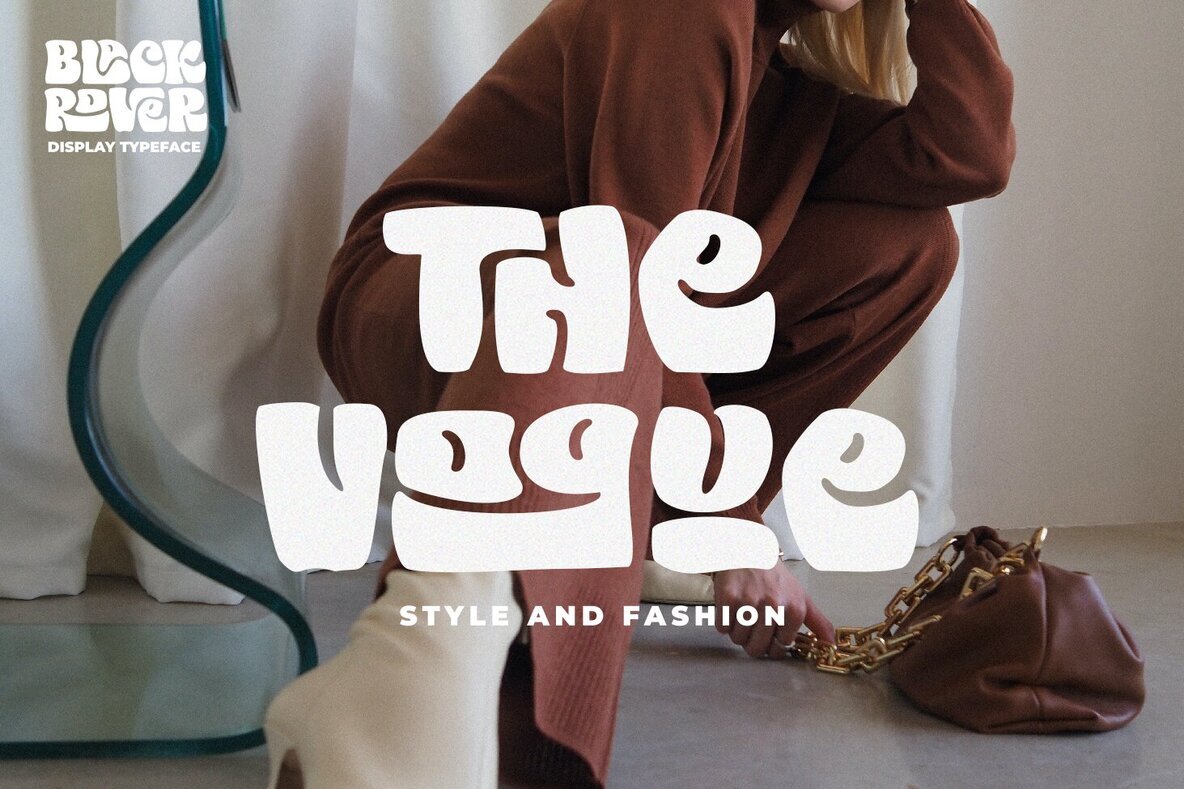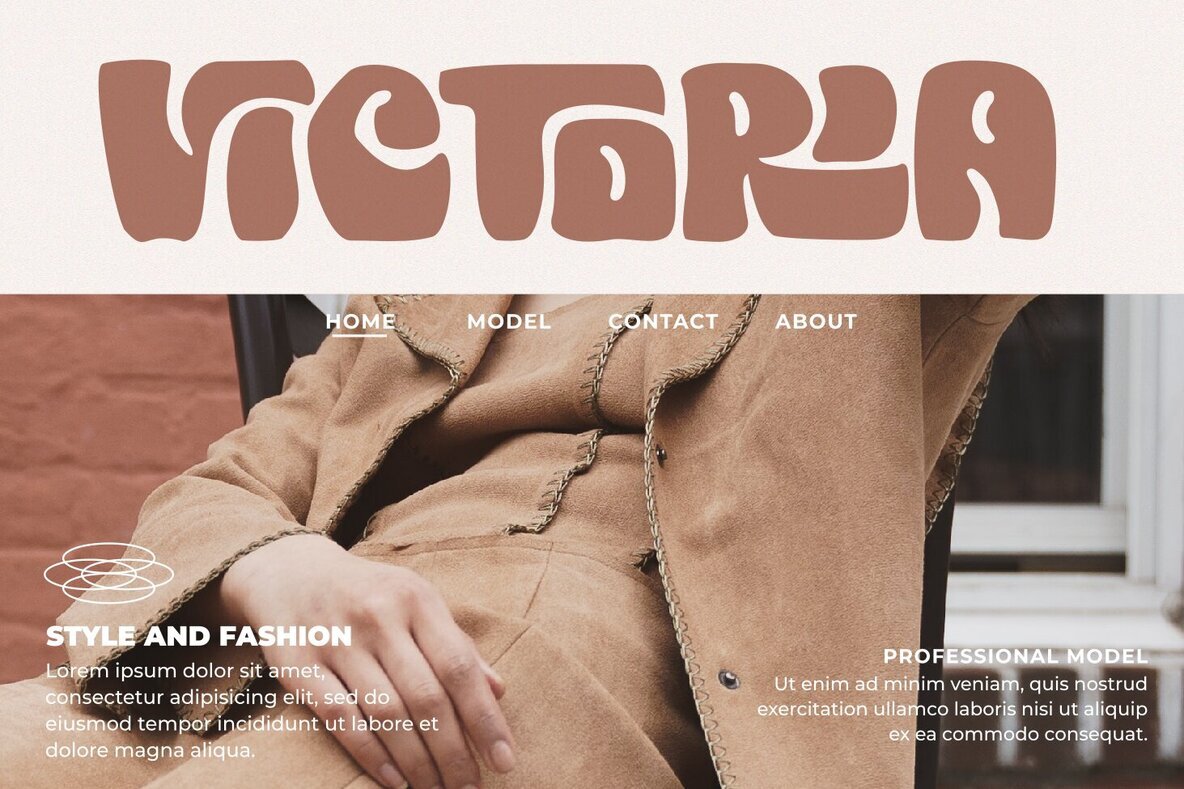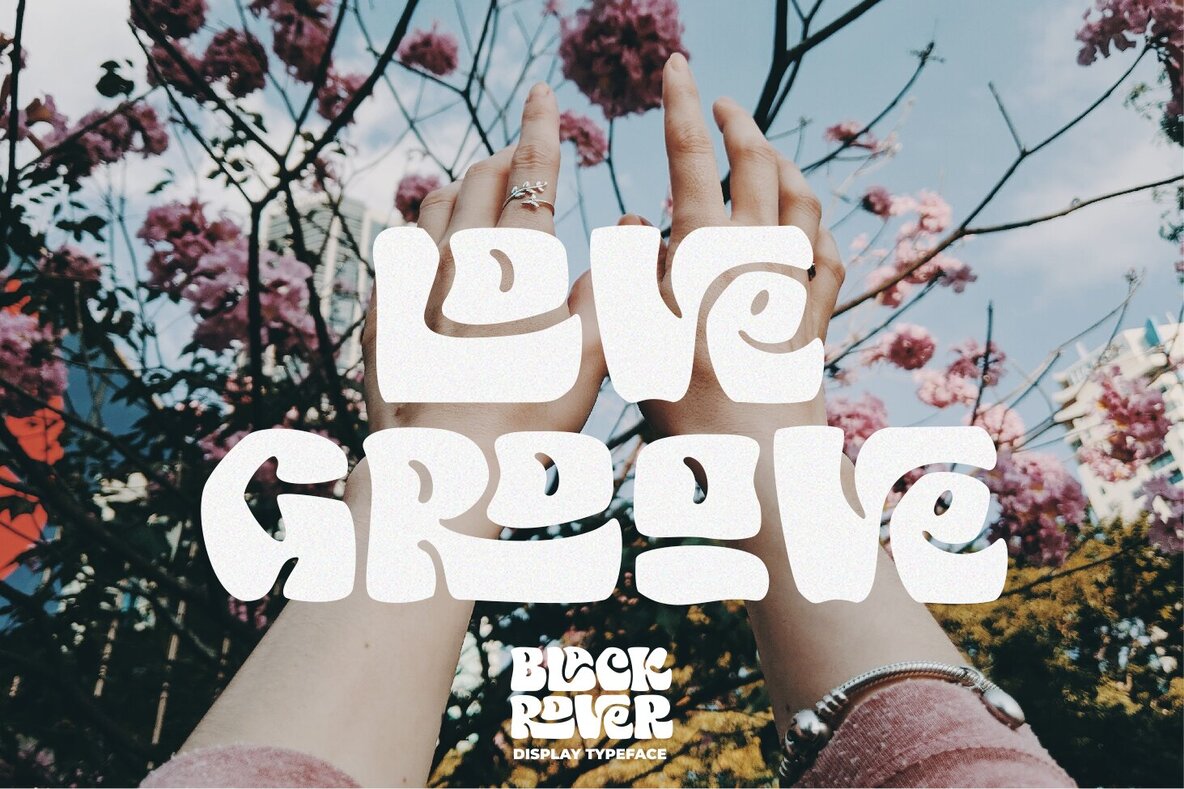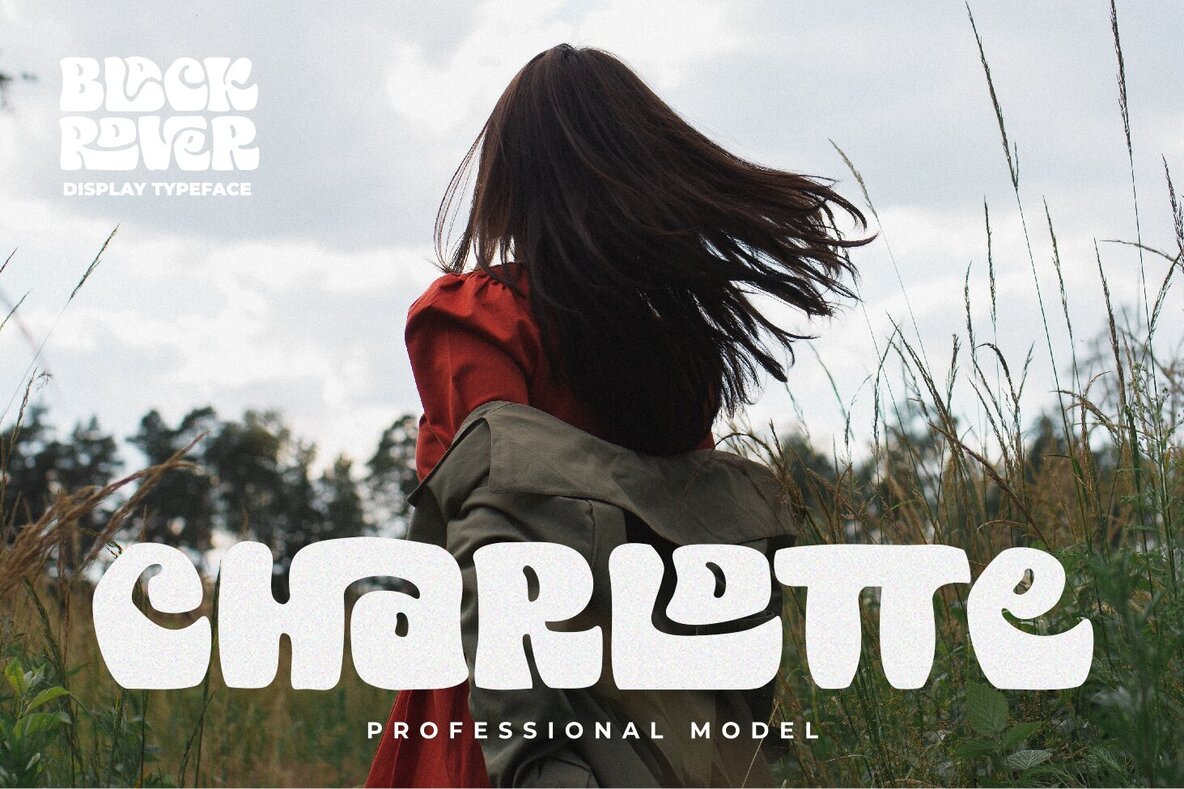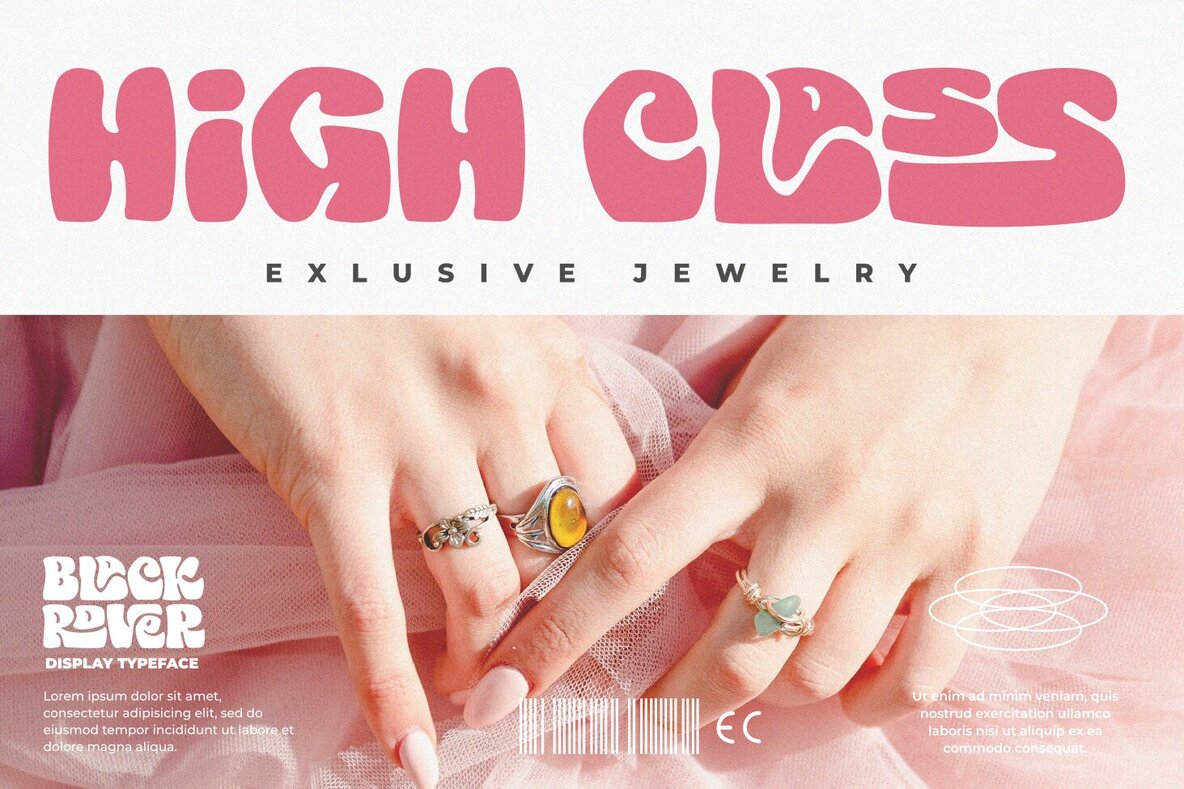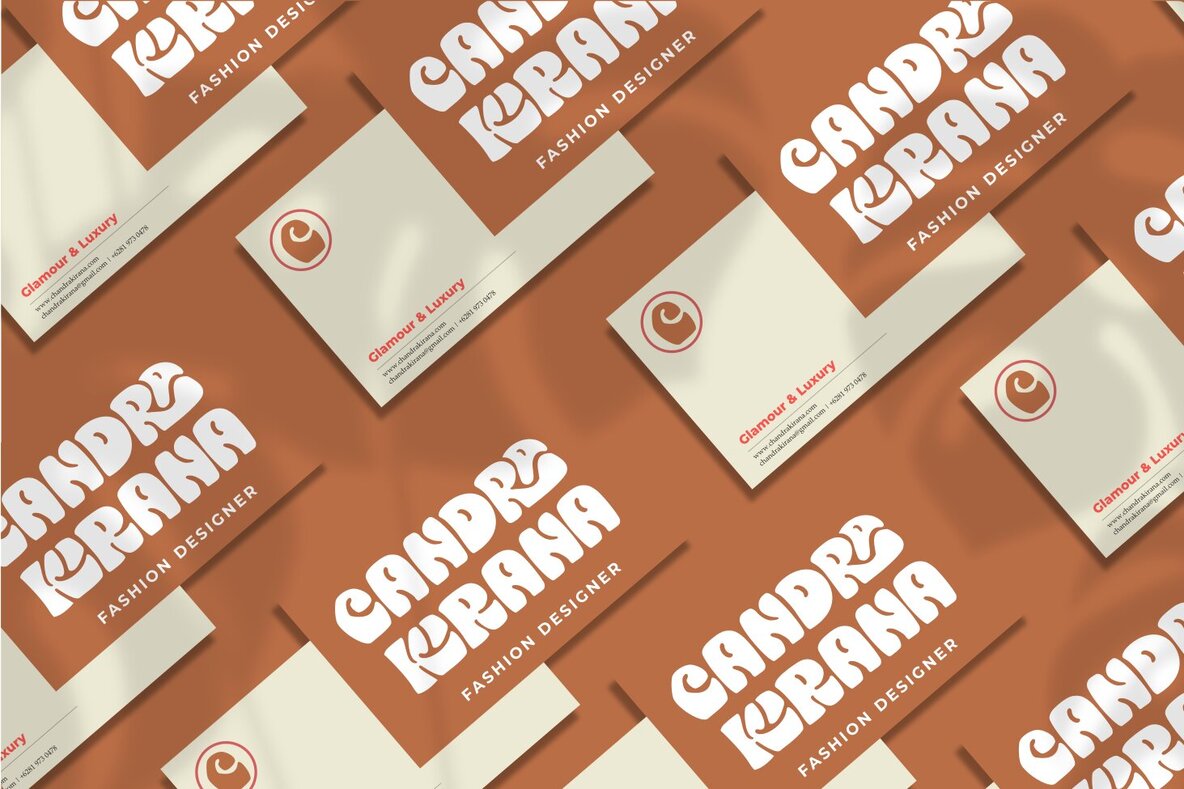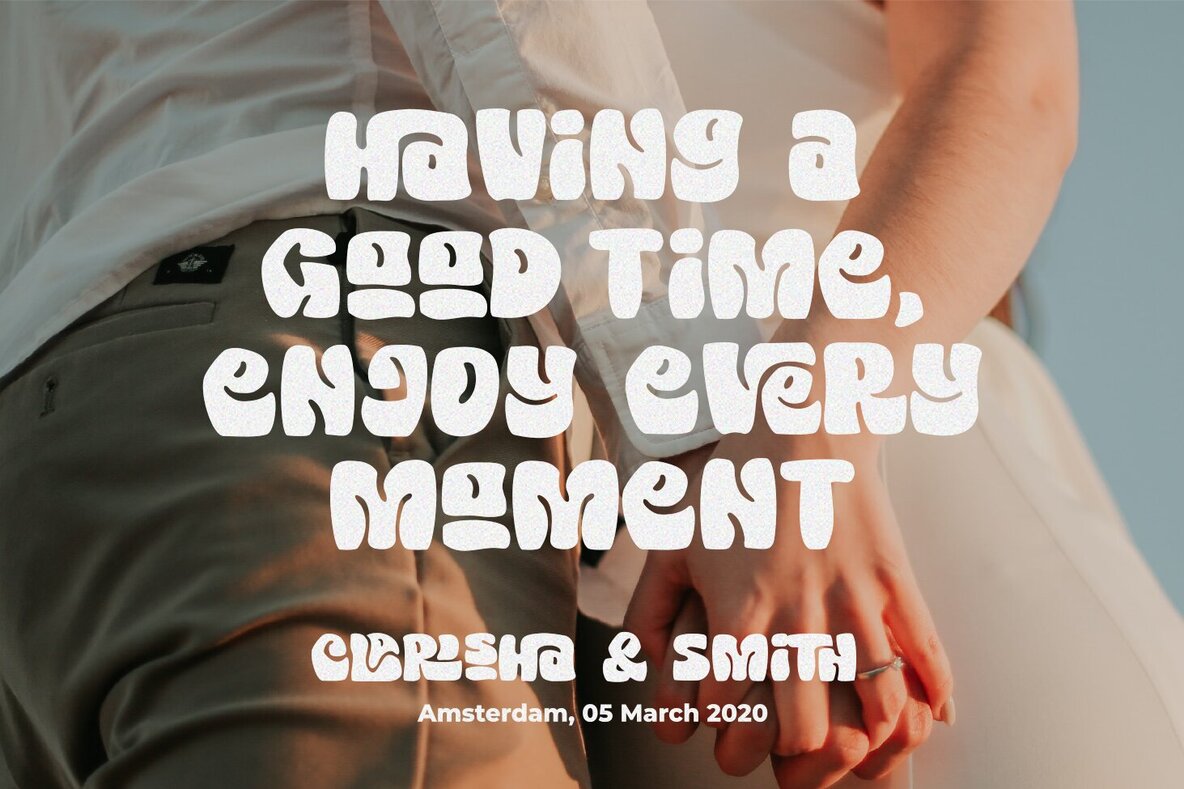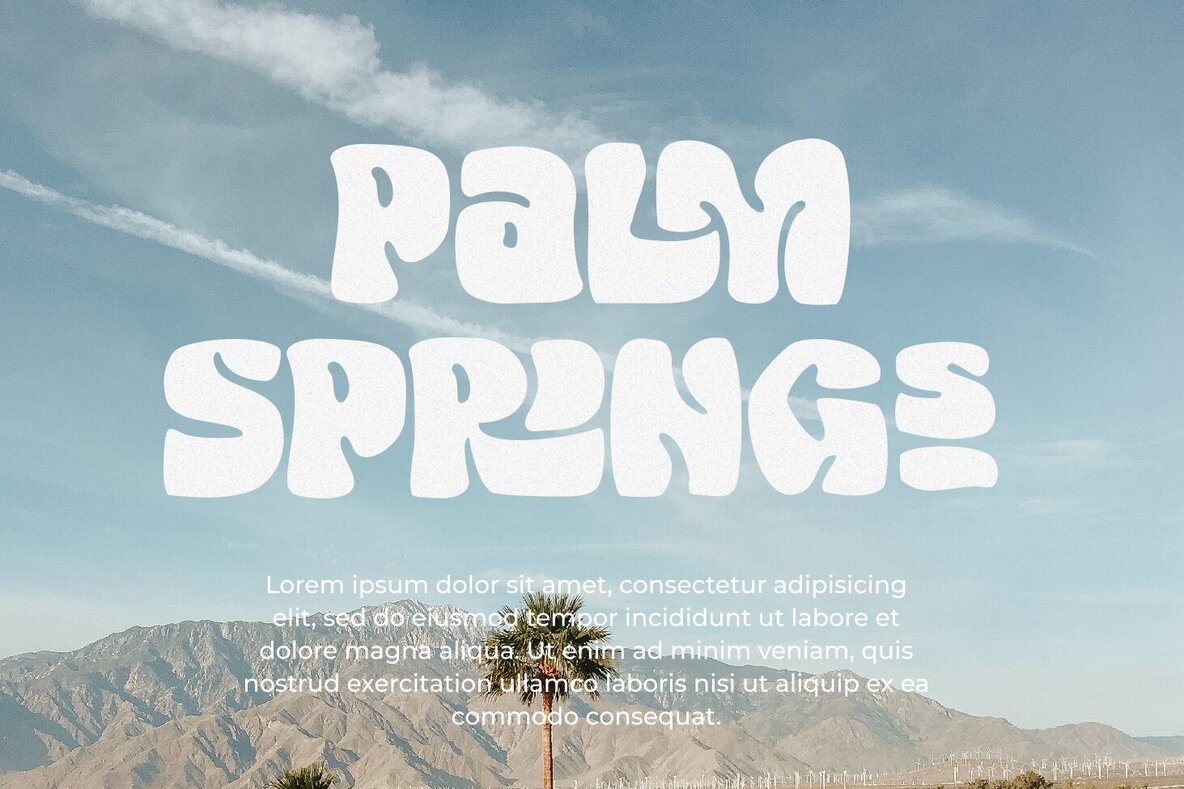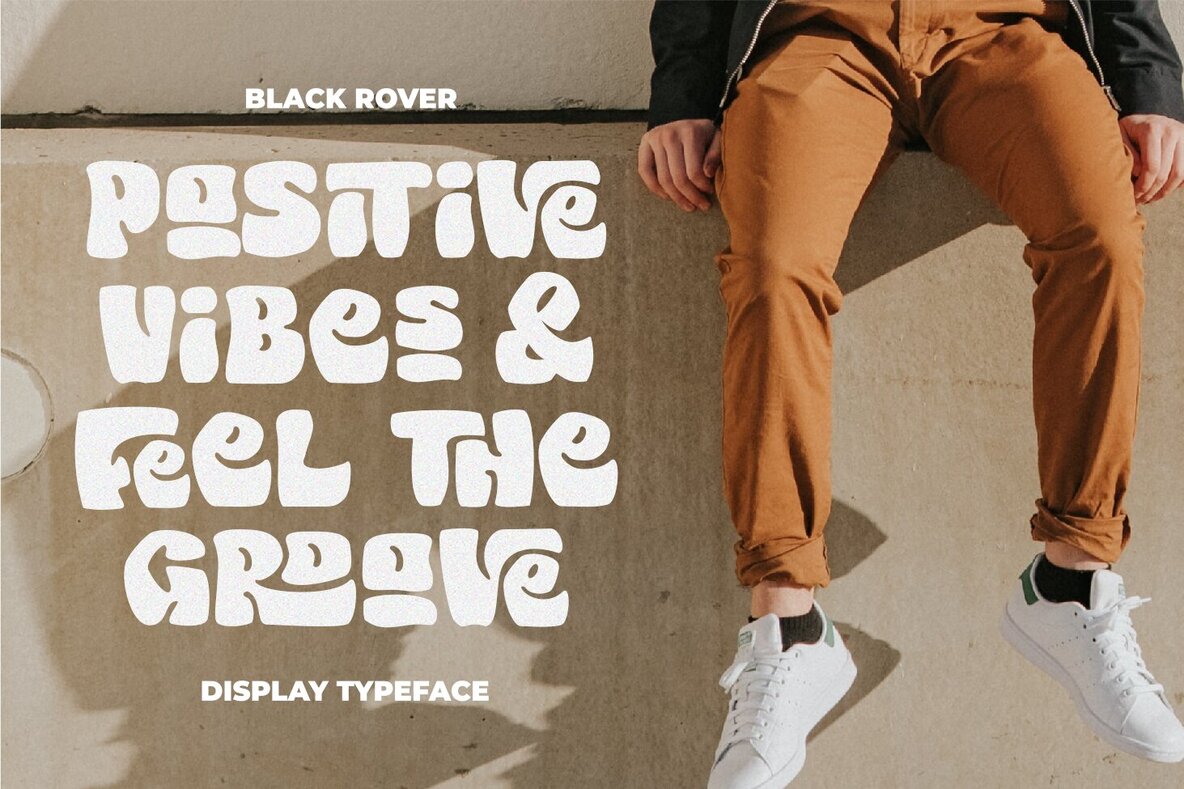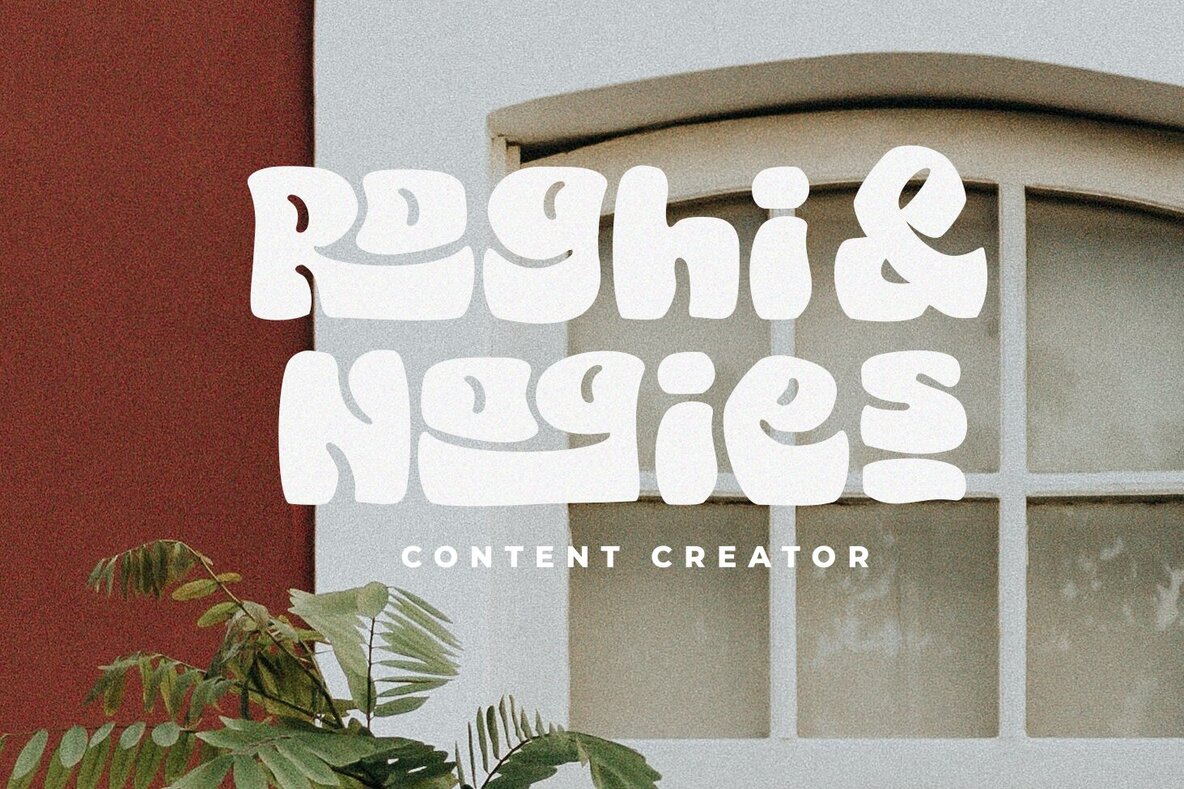
Black Rover Font
Black Rover Regular
Black Rover is a bold serif font that combines vintage style with strong character and soft features. Its versatility makes it an excellent choice for a wide range of design projects, especially in larger formats. Whether you are working on editorial projects, logo design, clothing branding, product packaging, or magazine headers, Black Rover provides a stylish, bold text overlay that enhances any background image. This font is PUA encoded, allowing you to easily access all the amazing glyphs and ligatures.Black Rover: Bold Vintage-Style Serif Font
Ideal for Various Projects